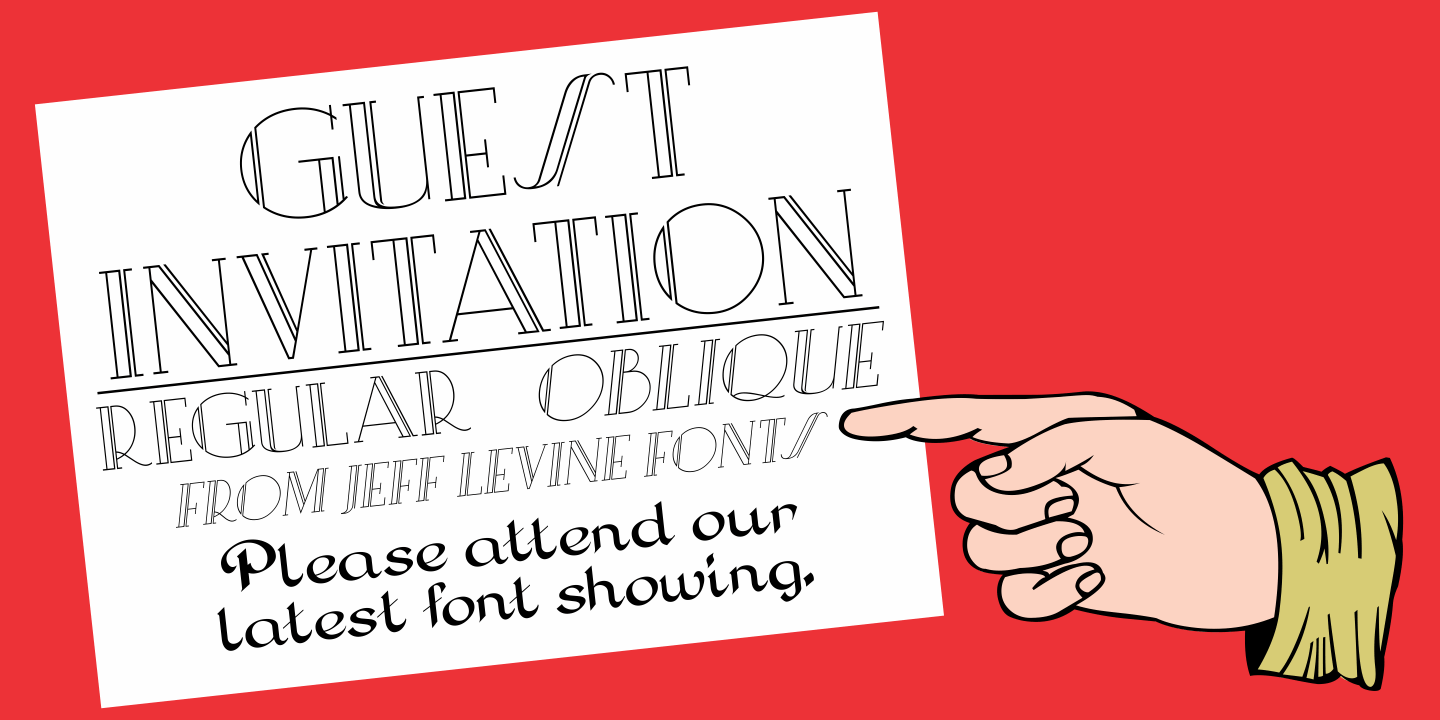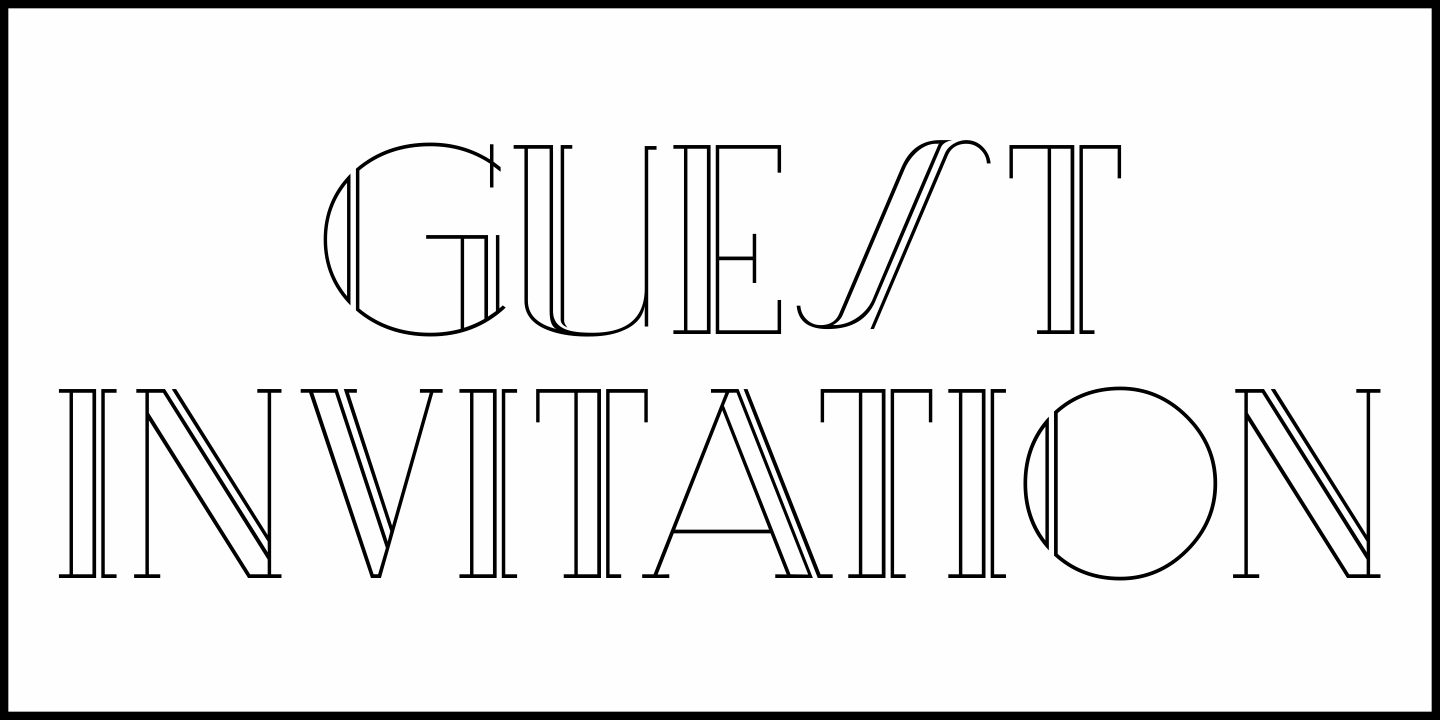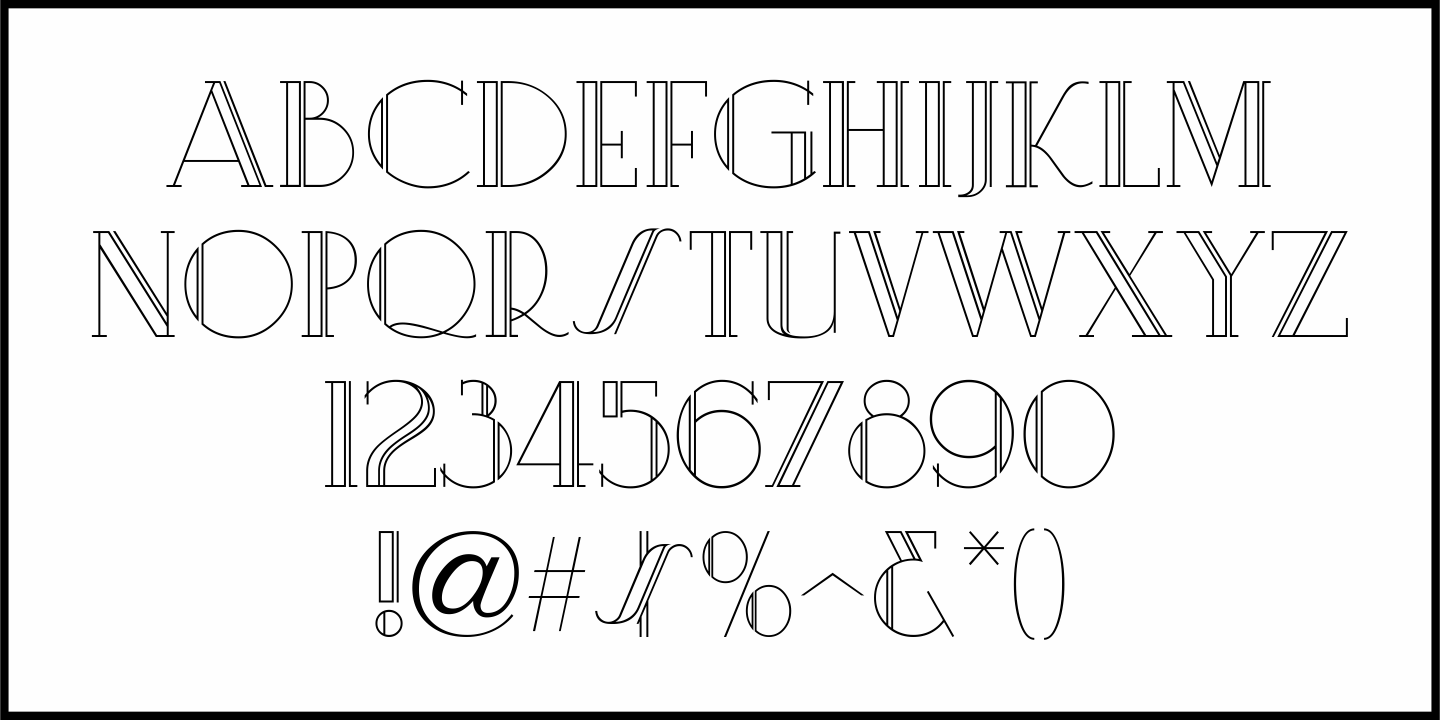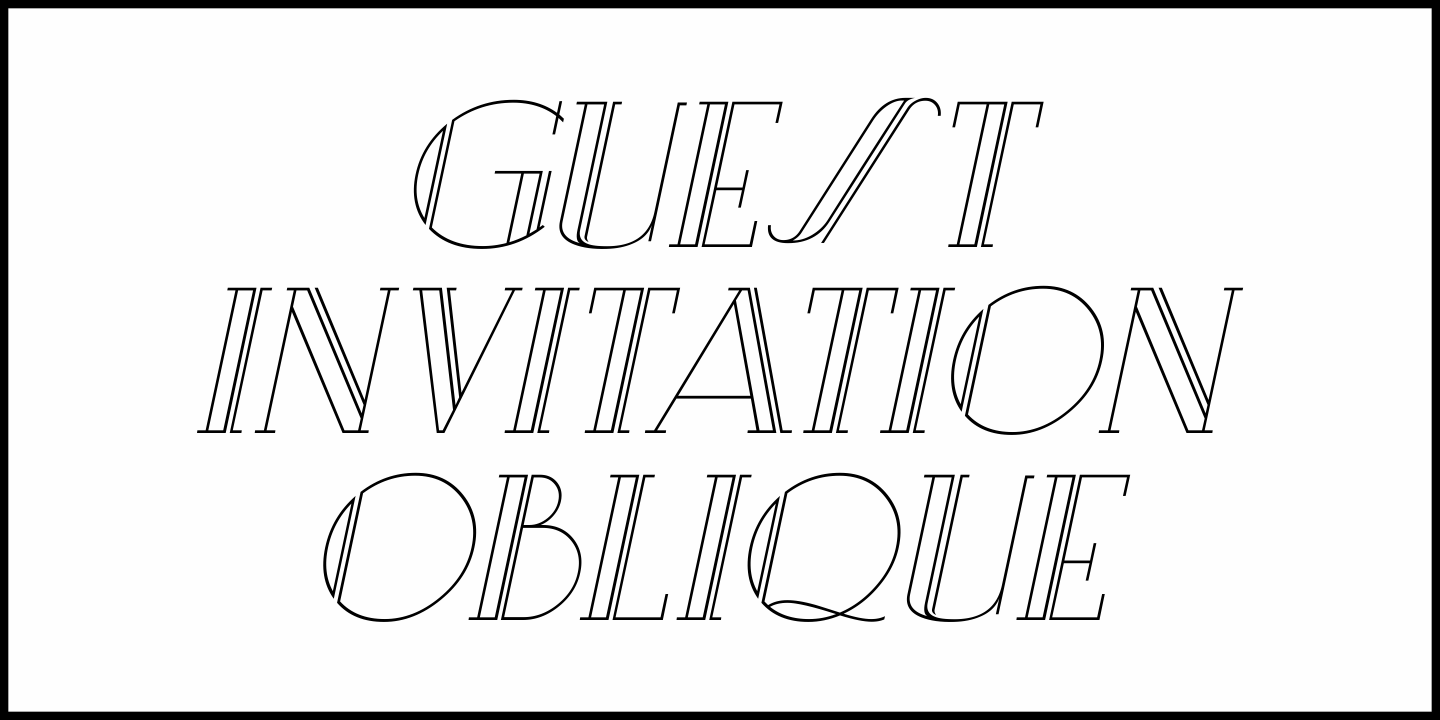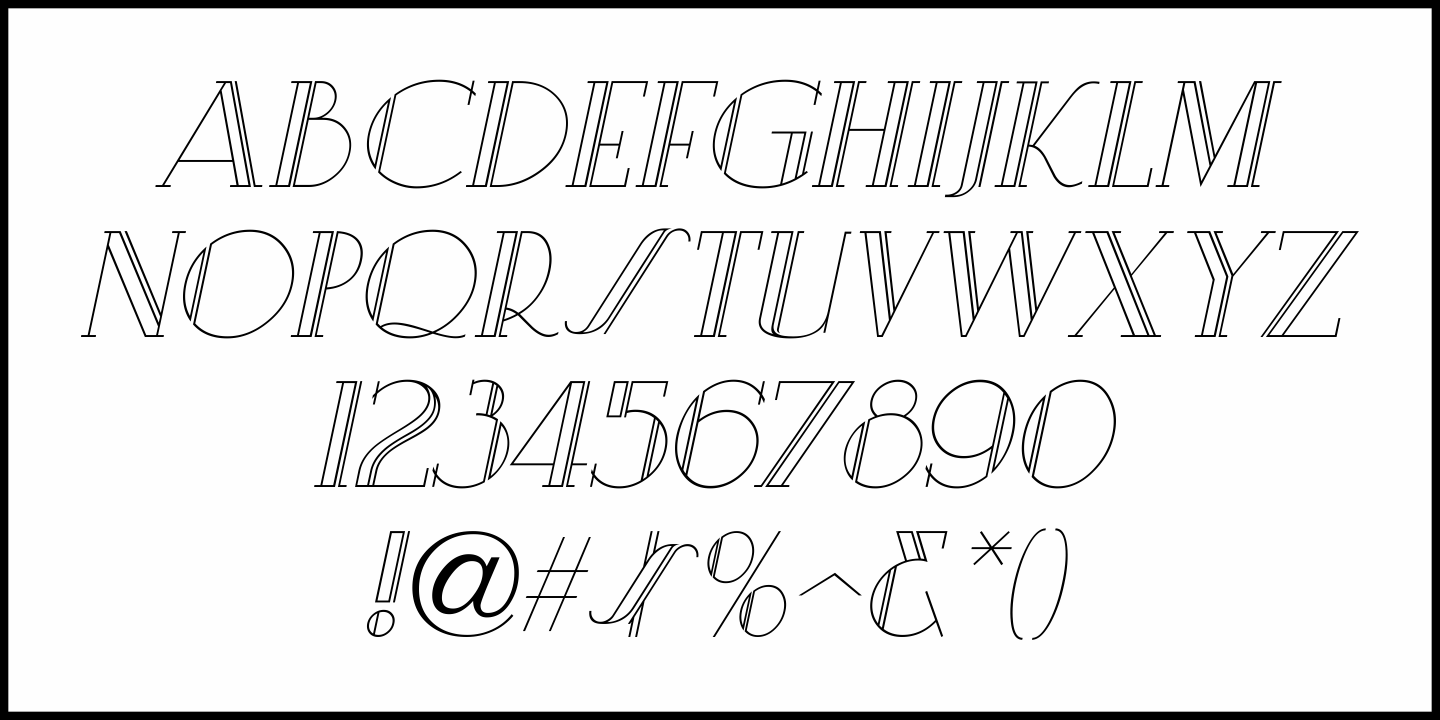
Guest Invitation
Samuel Welo was a sign painter who had published in the 1920s and again in 1960 editions of his 'Studio Handbook – Letter and Design for Artists and Advertisers”.
In-between, in 1930 Welo also published 'Lettering - Practical and Foreign”. Within the pages is an Art Deco outline slab serif design using multiple thin lines to create an 'incised” or 'engraved” look within the characters.
This intriguing type style is now available as Guest Invitation JNL, in both regular and oblique versions.